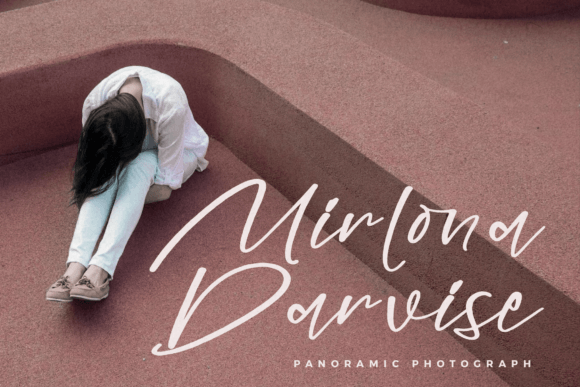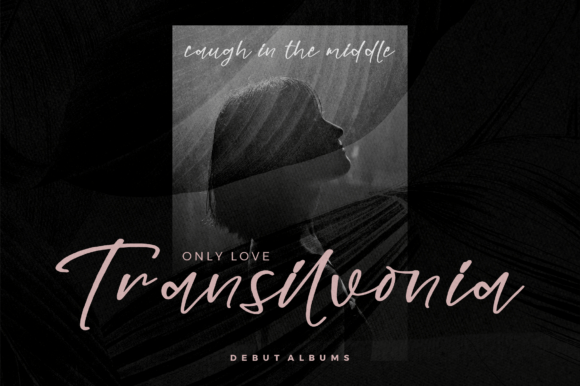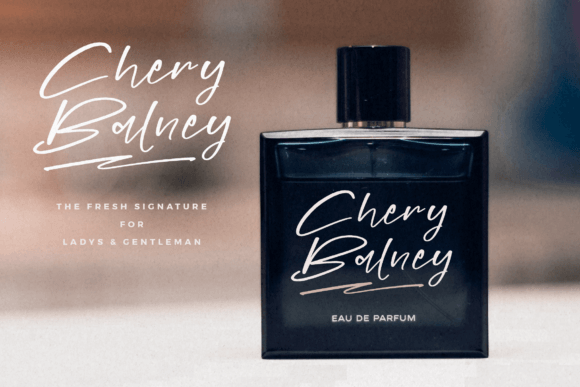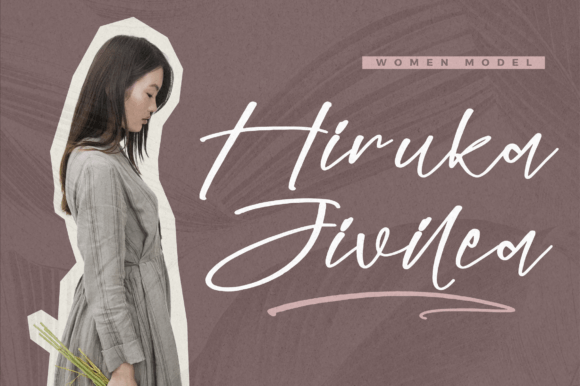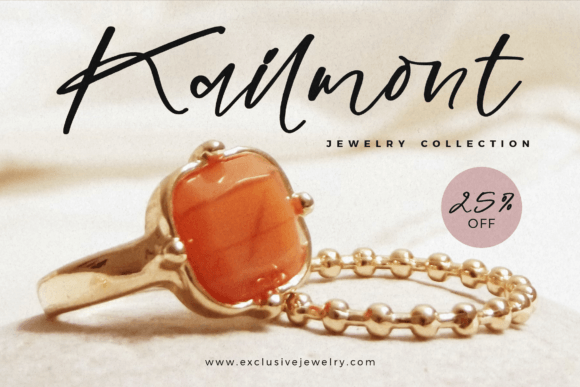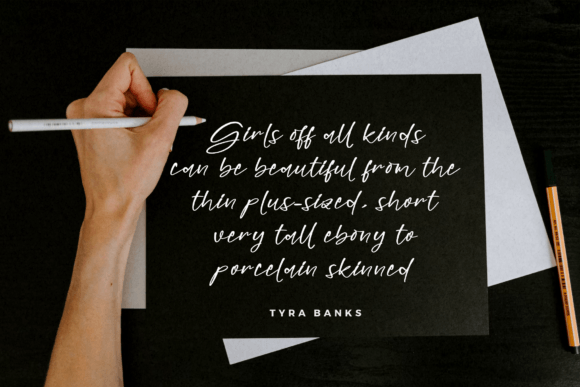
The Designer’s Delight: Alonsita Gilbert Font
Have you ever been in the middle of a design project, and suddenly, you’re stuck on finding the perfect font? I recall a recent experience where I was working on a luxury branding project, and my client requested a script font that exuded elegance and sophistication. After hours of searching, I stumbled upon the Alonsita Gilbert Font, and it instantly became my go-to choice. In this article, I’ll share my experience with this beautiful font, its features, and how to make the most of it in your designs.
As a designer, I appreciate fonts that offer flexibility and versatility. The Alonsita Gilbert Font ticks all the right boxes, and here’s what I love about it:
• ✨ Elegant script style suitable for luxury projects
• ✅ PUA encoded for easy access to glyphs and ligatures
• 💫 Highly legible, even at smaller font sizes
• 🎨 Versatile and adaptable to various design applications
While the Alonsita Gilbert Font is an excellent choice, there are a few minor quirks to consider:
• 🤔 Limited availability of condensed or extended styles
• ⚠️ May require additional kerning adjustments for optimal spacing
The Alonsita Gilbert Font was created with inspiration from traditional luxury scripts and a passion for elegant design. The font’s creator aimed to craft a typeface that would evoke a sense of sophistication and refinement, perfect for high-end branding and design projects.
What is the Alonsita Gilbert Font suitable for? The Alonsita Gilbert Font is suitable for a wide range of design projects, including logos, branding, homeware designs, product packaging, and more.
Is the Alonsita Gilbert Font PUA encoded? Yes, the Alonsita Gilbert Font is PUA encoded, making it easy to access glyphs and ligatures.
With its elegant script style and versatility, the Alonsita Gilbert Font is an excellent addition to any designer’s toolkit. Whether you’re working on a luxury branding project or a creative hobby, this font is sure to impress.